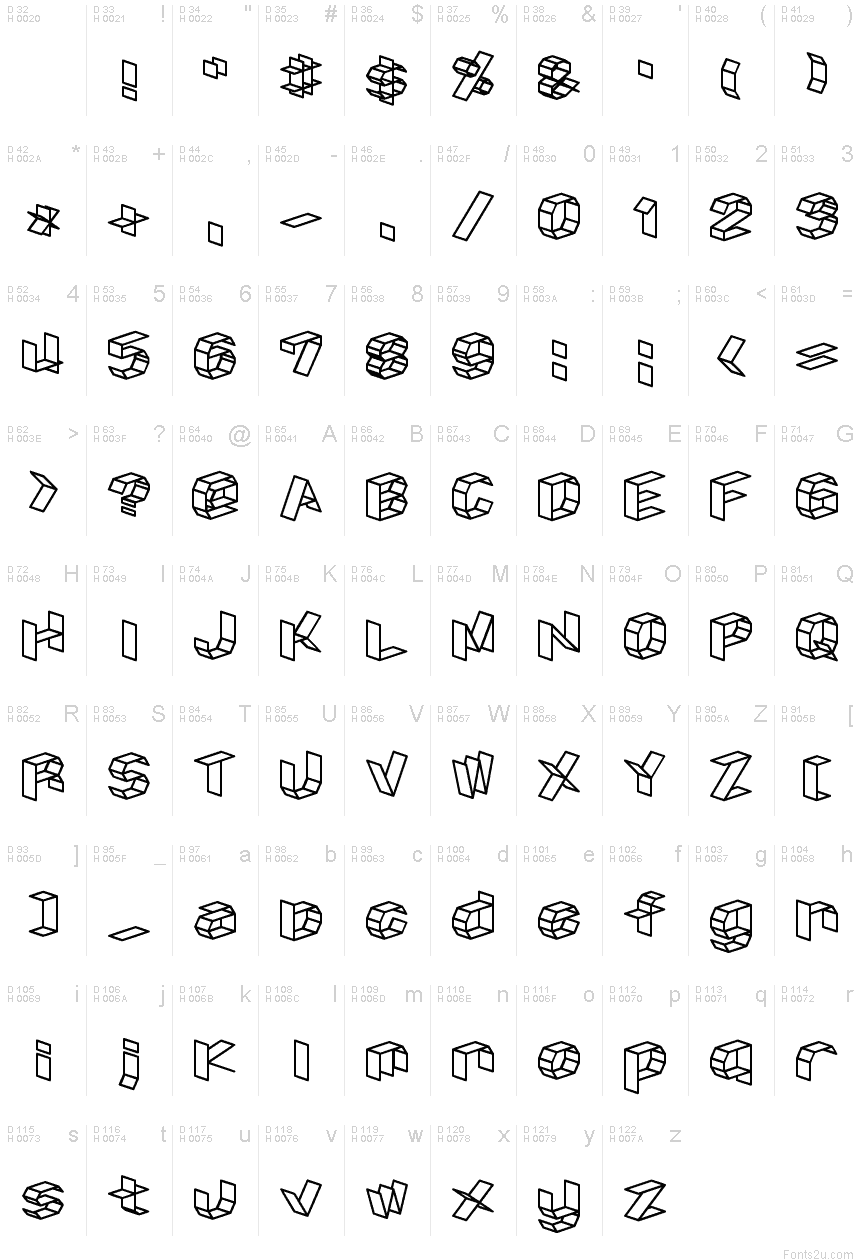
D3 Craftism
D3 Craftism font by Digitaldreamdesign is a free 3D geometric display typeface with the feel of hand-cut cardboard letters folded into chunky little sculptures. Its open outlines and sharp, faceted sides give words a crafty, toy-block rhythm, so even a short title looks tactile and lively without needing extra effects.
Using D3 Craftism works beautifully for poster headlines, game titles, sci-fi zines, kids’ workshop flyers, album art, sticker designs, and bold packaging where flat text feels too quiet. Keep D3 Craftism at a larger size so the dimensional edges stay crisp, and pair this free font with a plain sans like Inter for clean contrast.